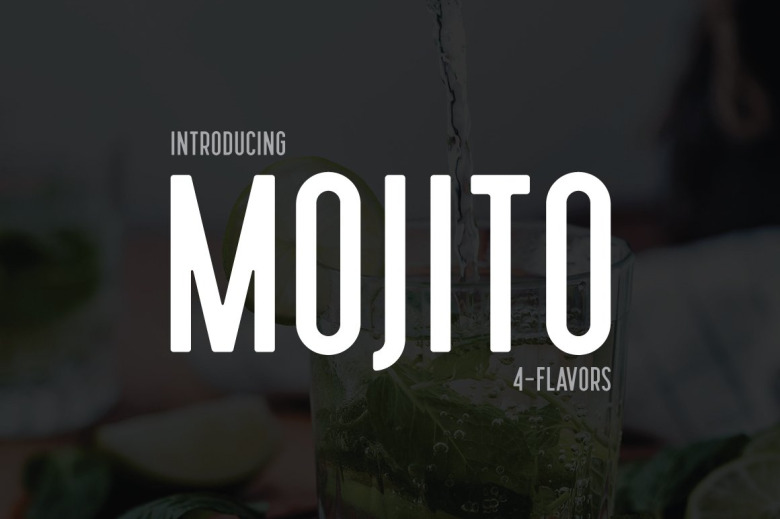
Mojito Font
Mojito is an elegant sans serif font manufactured by Surplus Type Co. Its boldness, elegance and simplicity make this font look absolutely fabulous. This handy semi-condensed font includes clean & textured fonts, with oblique versions for each.
Equally comfortable being put to use in modern or vintage projects, this versatile font is excellent for logos & branding, advertising, promotions & events, plus countless other uses.